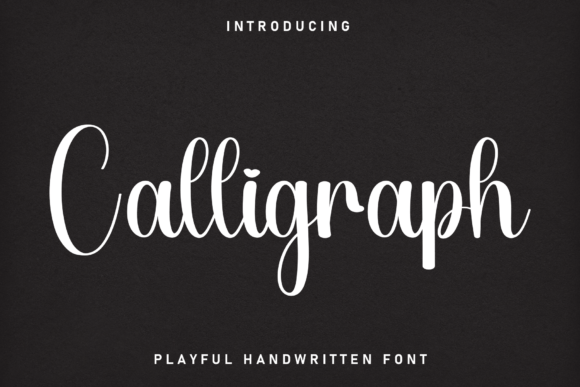
The Art of Whimsy: Unveiling the Delightful Calligraph Font
Have you ever found yourself doodling in a notebook, letting your pen wander across the page as you create a mess of beautiful, swirly lines? That’s where the magic of Calligraph Font begins – a delightful handwritten display font that brings a touch of whimsy to every design story.
This charming font is designed to inject fun and personality into your work, from elegant wedding invitations to playful greeting cards. Its intricate strokes and steady rhythm create a friendly and inviting aura that’s sure to captivate your audience. As a designer or crafting enthusiast, you know how valuable it is to have a distinctive type that makes a lasting impression – and that’s exactly what the Calligraph Font delivers.
Key Features of Calligraph Font
- Unique Characteristics: The Calligraph Font features a distinctive, elegant script style with flowing connections between letters, making it ideal for creative and artistic applications.
- Customization Options: The font includes a range of customization options, including ligatures, swashes, and ornaments, allowing designers to add a personal touch to their work.
Calligraph Font Review
I recently had the chance to work with the Calligraph Font, and I must say it’s been a wild ride. Here are my honest thoughts on what works well and what doesn’t.
- Unique and elegant aesthetic: The Calligraph Font has a distinct, handwritten feel that’s perfect for adding a touch of sophistication to any design.
- Good legibility: Despite its decorative nature, the font is still easy to read, making it suitable for body text or headlines.
- High-quality glyphs: The font’s character set is comprehensive and well-crafted, with subtle variations in stroke width and flair that add to its charm.
- Limited font sizes: The Calligraph Font starts to fall apart at larger font sizes, losing its elegant appearance and becoming awkward to read.
- No bold or italic variants: While the regular weight is lovely, the lack of bold or italic versions can make it difficult to create visual hierarchies or emphasize important text.
- Not suitable for sans-serif designs: The Calligraph Font’s ornate style clashes with clean, minimalist designs, making it better suited for more traditional or vintage-inspired layouts.
Overall, the Calligraph Font is a beautiful addition to any design project, but it’s not without its limitations. With careful consideration of font sizes, color schemes, and design style, it can add a touch of elegance to even the most mundane designs.
Tips for Getting the Most Out of Calligraph Font
Use Calligraph Font to add a touch of elegance and sophistication to your designs. Experiment with different font sizes and styles to create a unique look. Pair the font with other elegant elements, such as cursive scripts and floral patterns, to create a cohesive design.
Use Calligraph Font for wedding invitations, birthday cards, and other special occasions. The font is also suitable for formal business documents, such as certificates and awards. Use the font to add a personal touch to your designs and make them stand out.